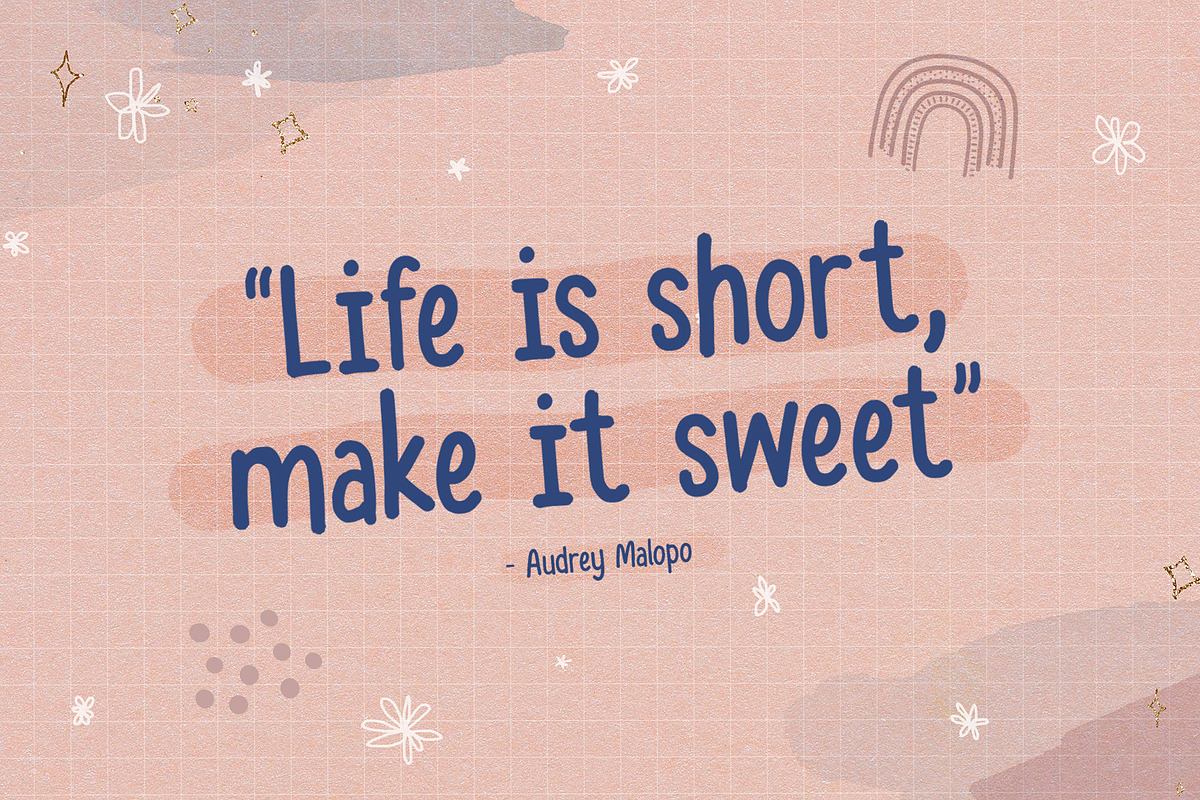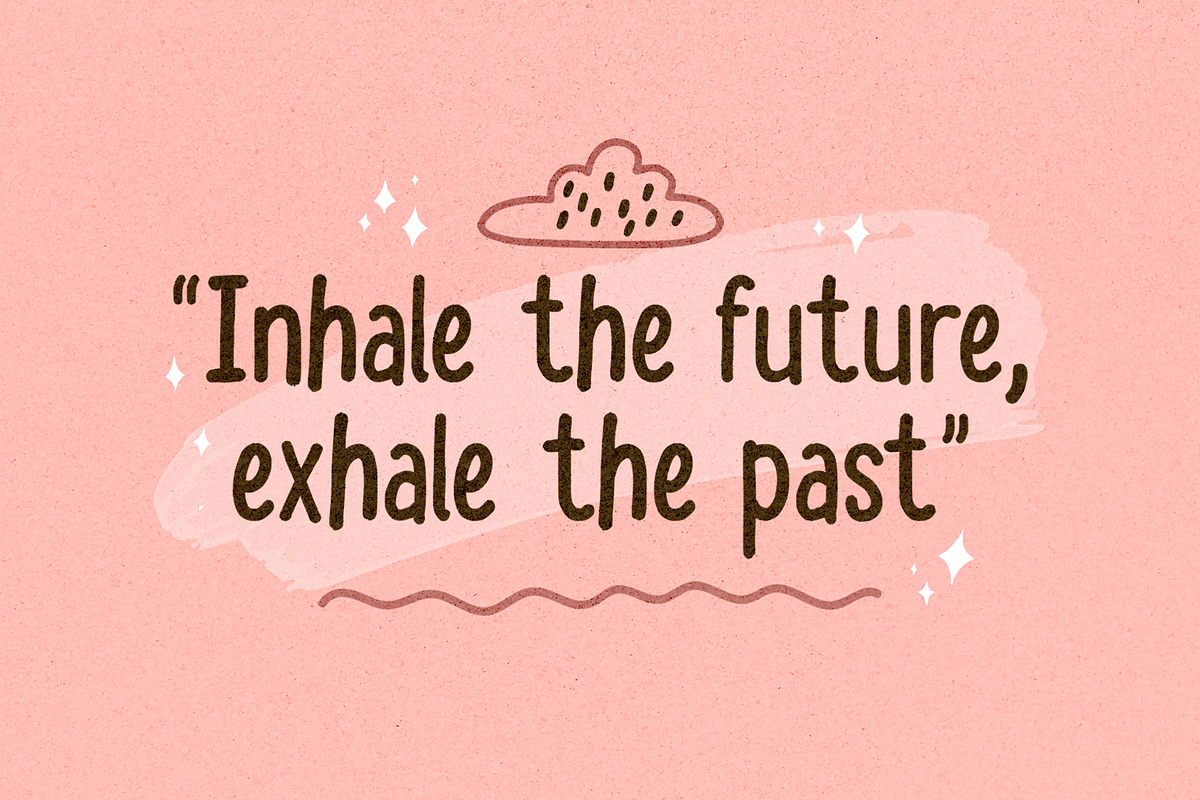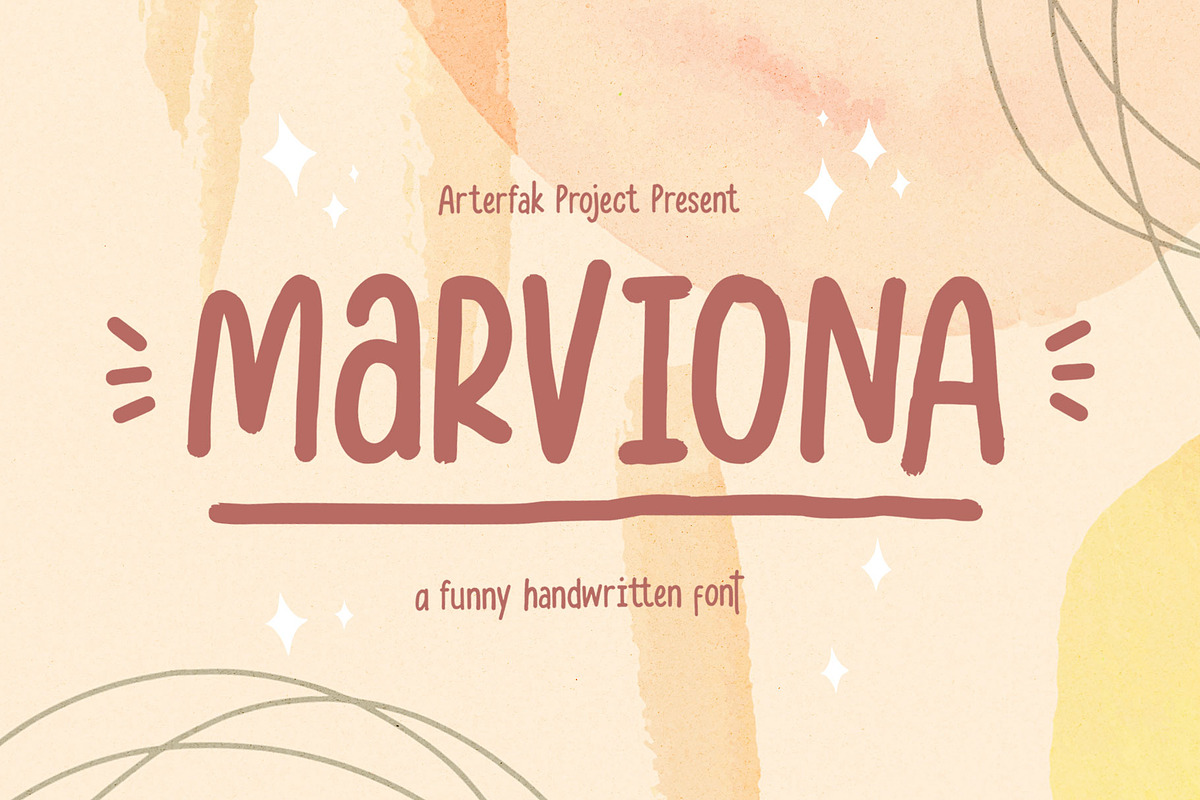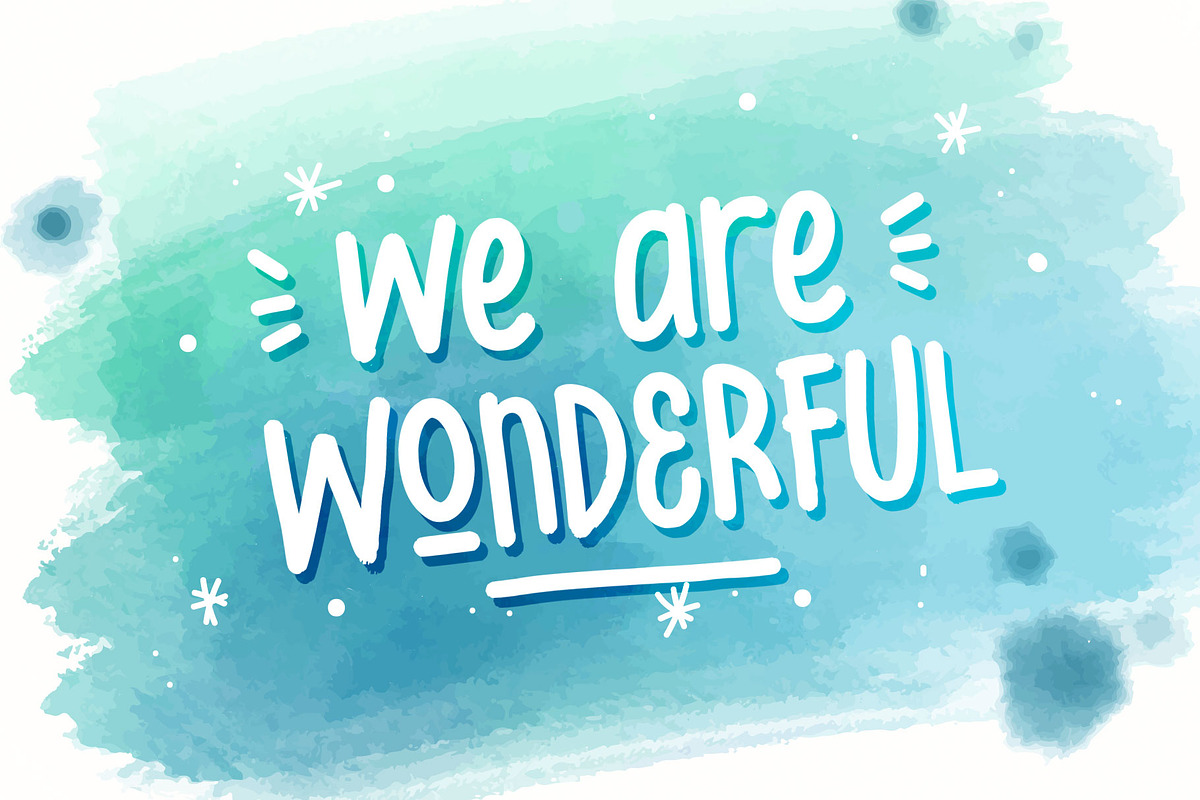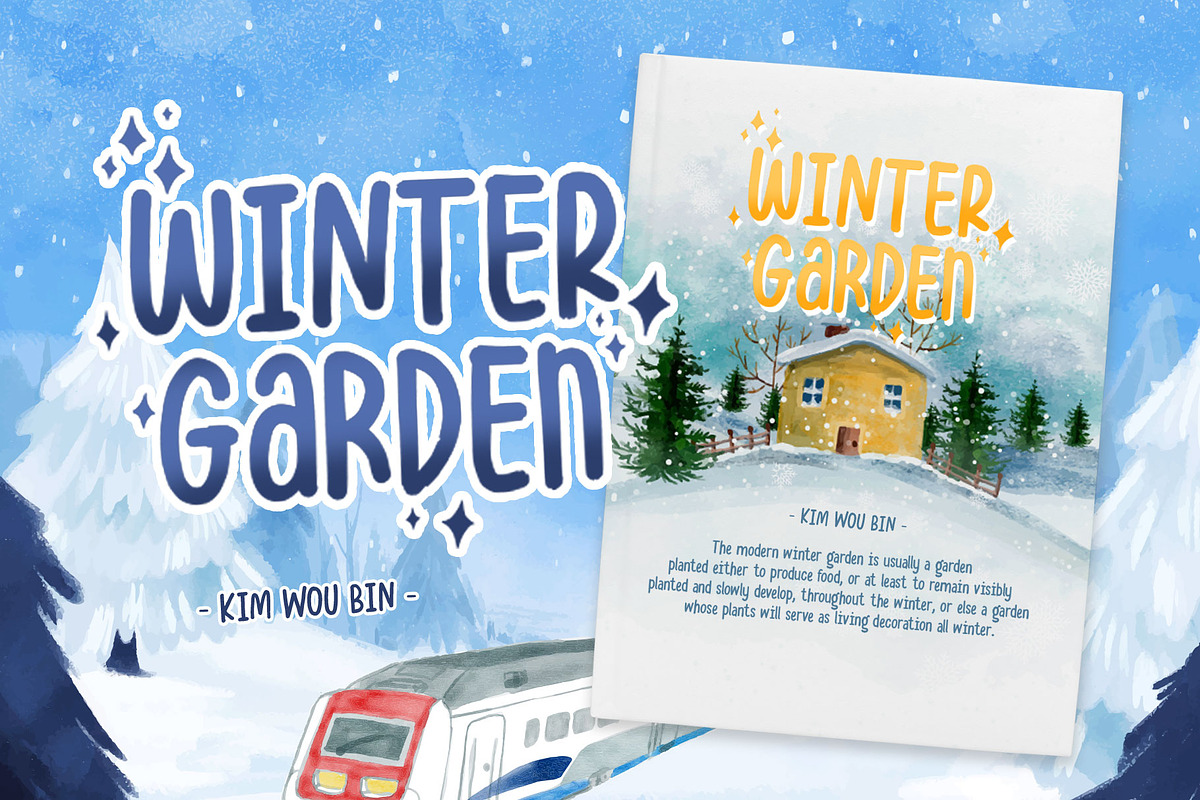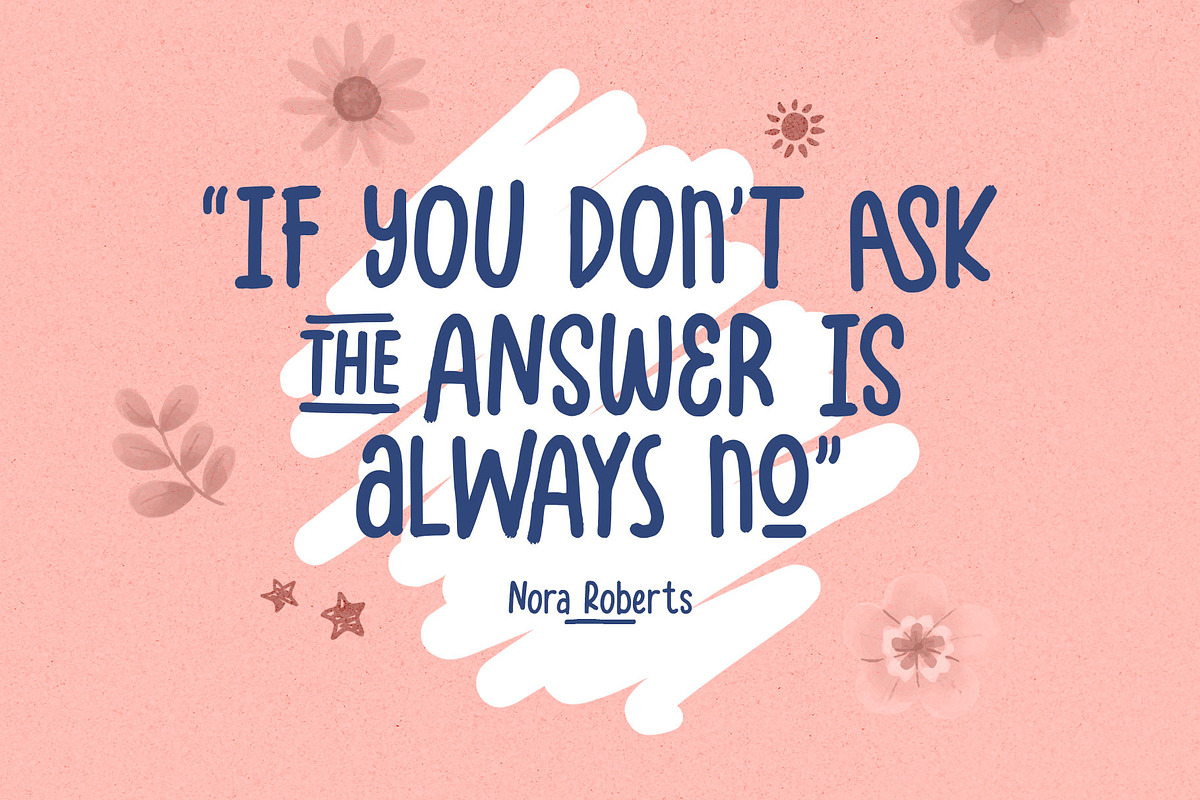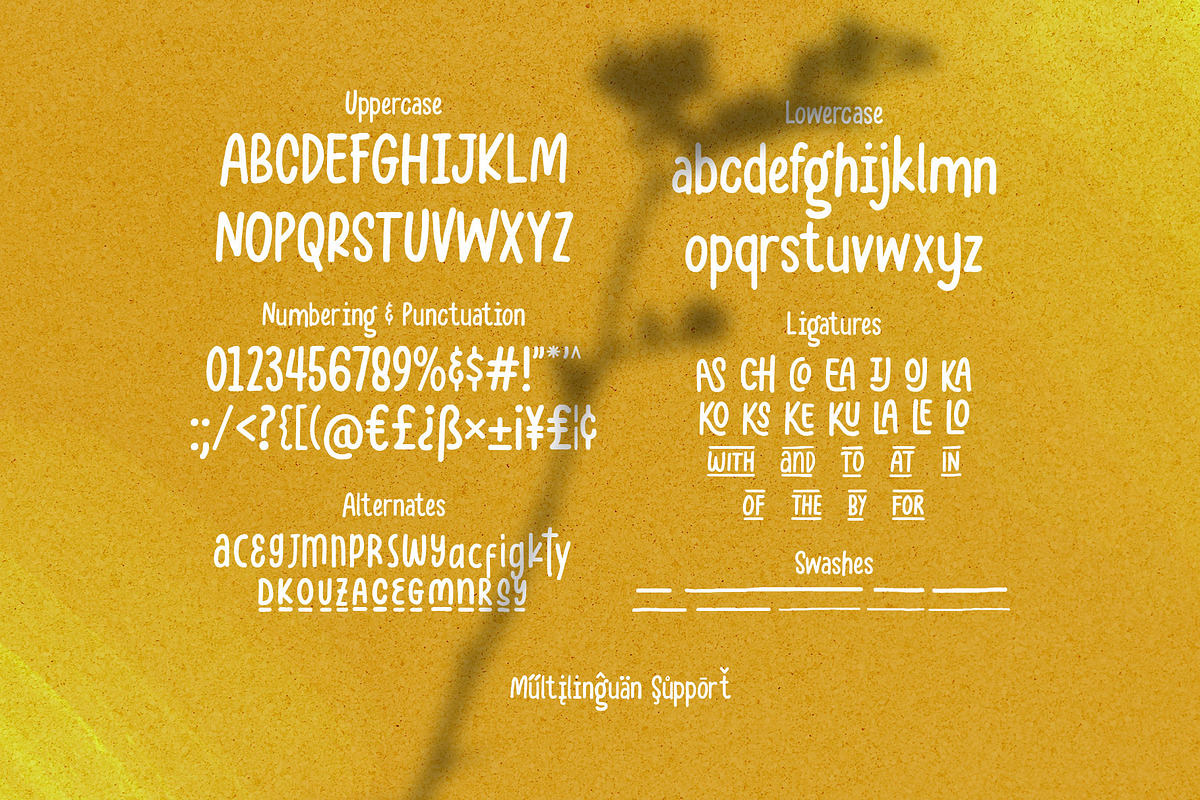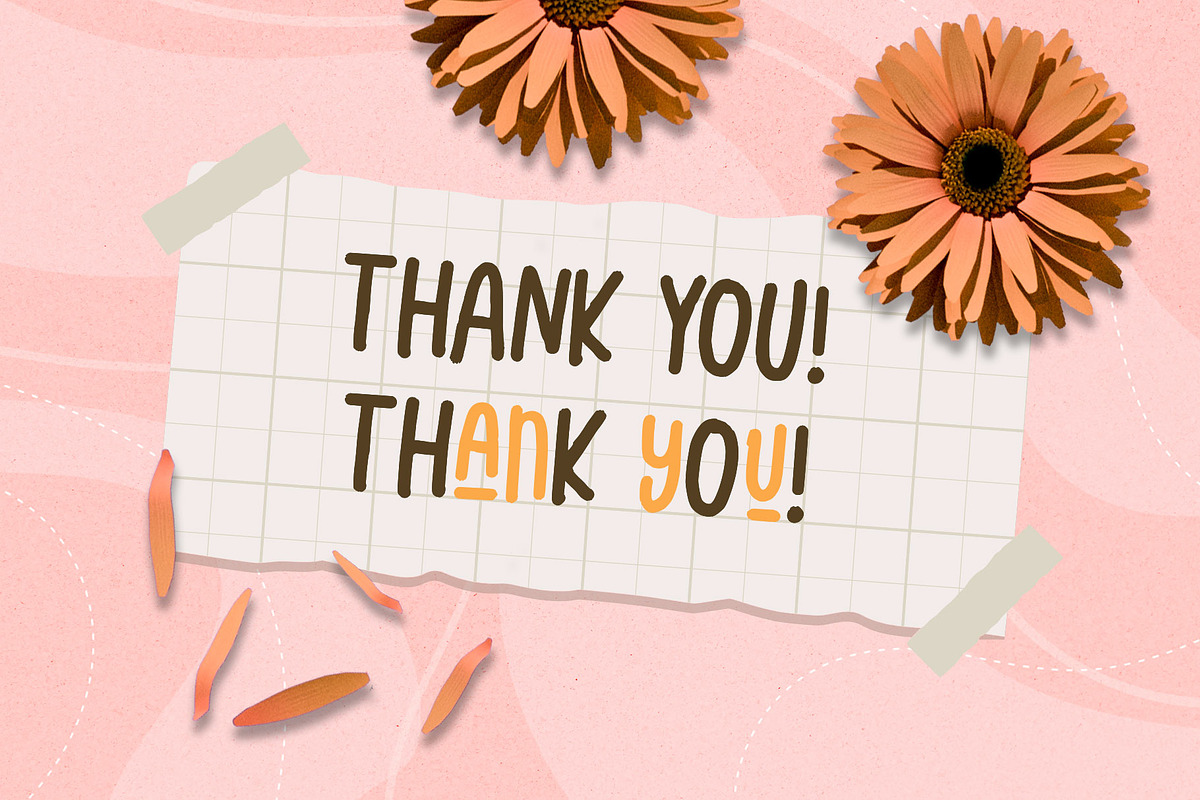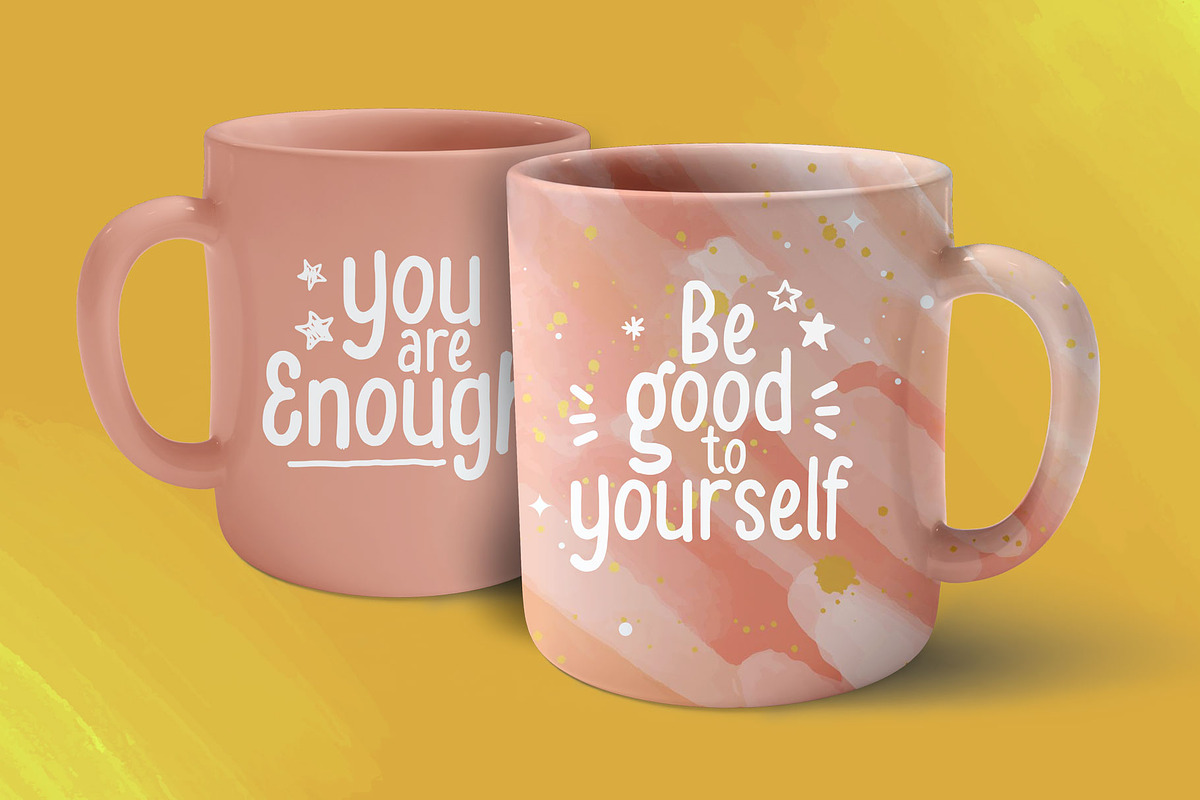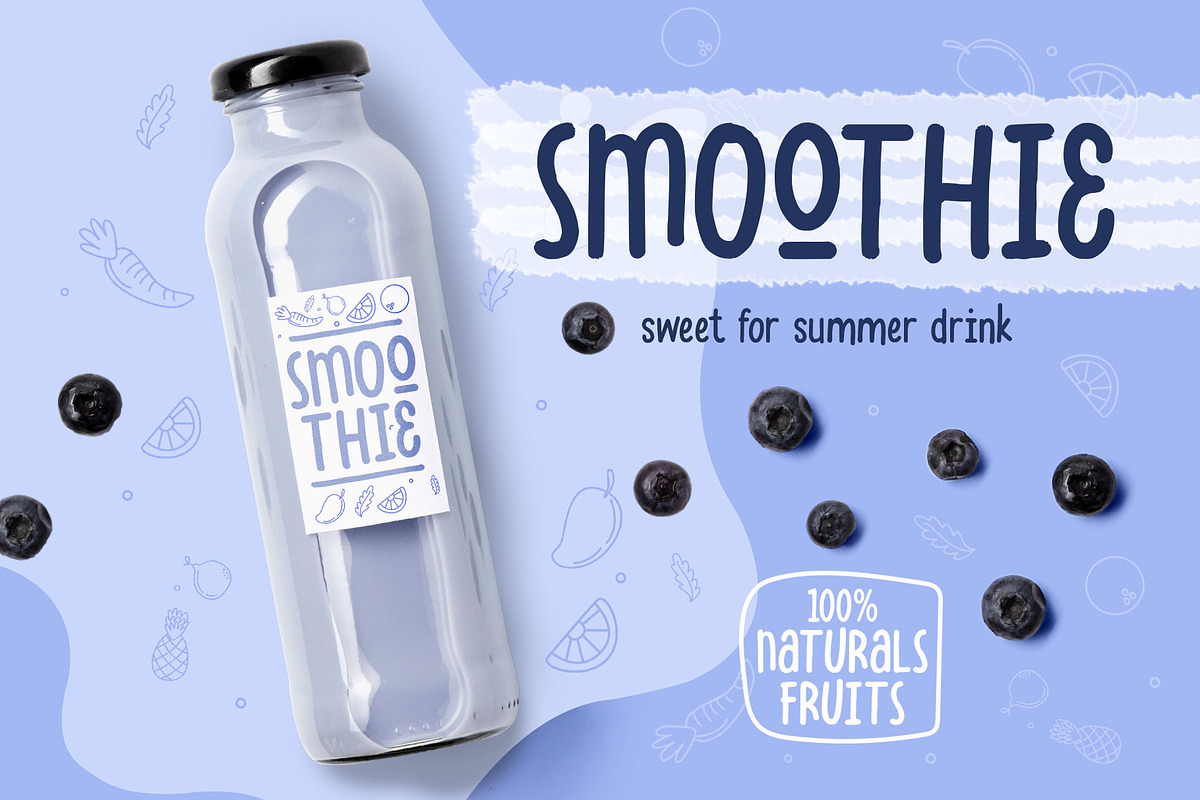
Marviona - Sweet Handwritten
Brighten your day with Marviona, inspired by cute handwriting and casual-minimalist design. Crafted with monoline brush with the natural flow of the letterforms. This font has a bit bouncy layout that makes it looks more playfully!
Marviona has sweet looks with a medium weight that you can apply for many themes and perfect for lovely quotes, headlines, logos, merchandise, books, bottle label, and short body text. Complete with OpenType features. Cheer up with Marviona!
Fonts featured :
- Symbol and punctuations
- Stylistic alternates
- Catchwords